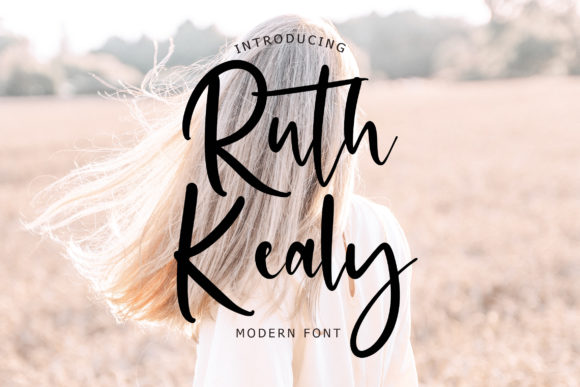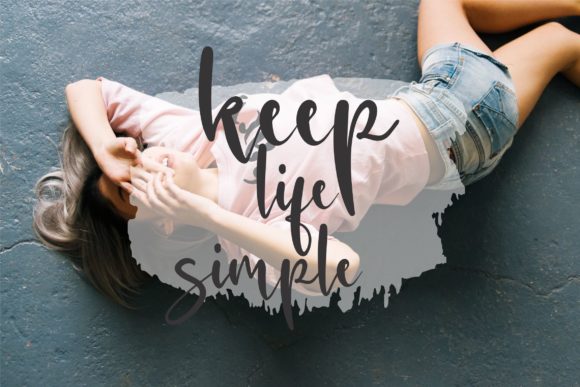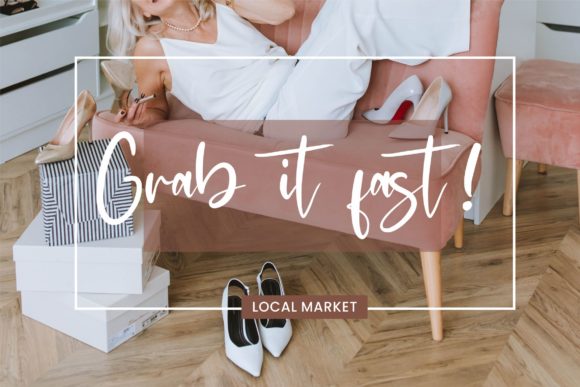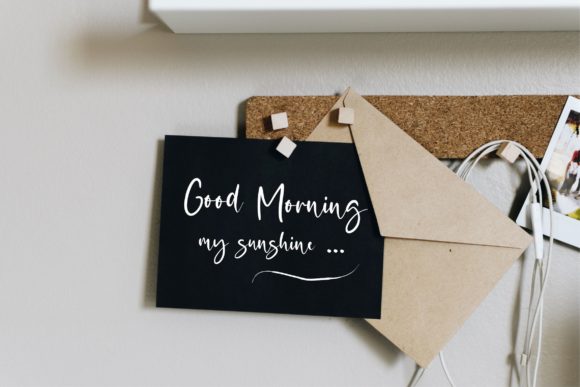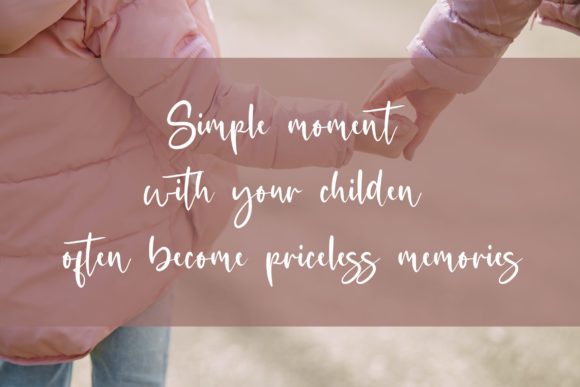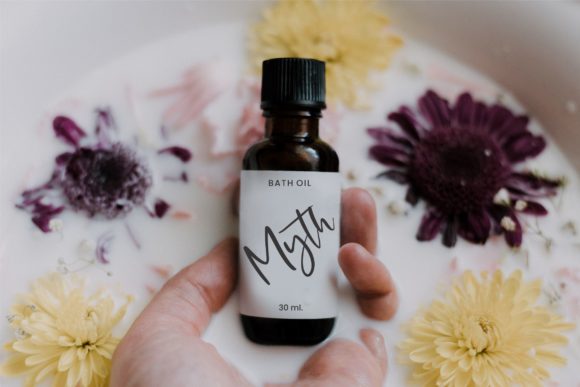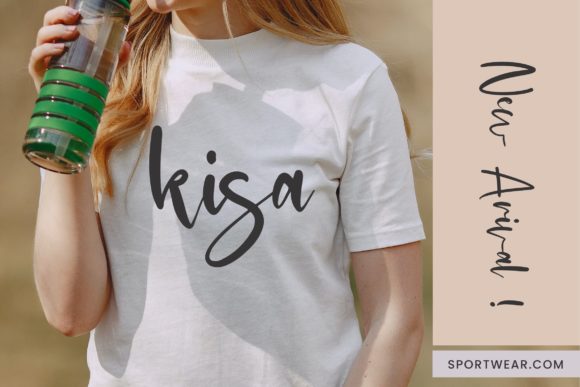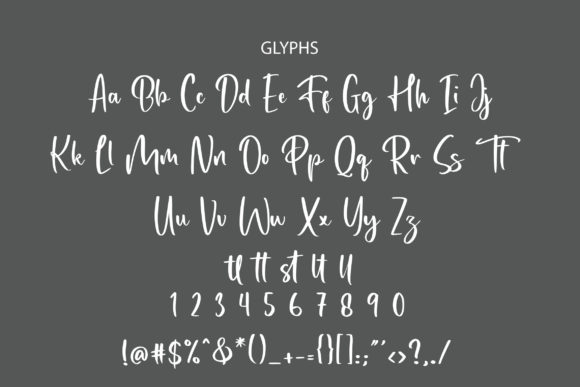
Ruth Kealy Font
About Ruth Kealy Font
Ruth Kealy is a trendy and elegant handwritten font that adds a touch of luxury and modernity to your text. Its smooth and flowing strokes create a sophisticated appearance, making it a perfect choice for various design projects.
For branding projects, Ruth Kealy brings a sense of exclusivity and refinement, making your brand appear upscale and chic. Whether used for logos, packaging, or marketing materials, the font adds a touch of elegance that sets your brand apart from the competition.
In wedding designs, Ruth Kealy adds a romantic and stylish element, making it ideal for invitations, save-the-date cards, and other wedding-related stationery. The font’s trendy appearance complements the modern aesthetics of contemporary weddings.
For social media posts and advertisements, Ruth Kealy’s stylish look attracts attention and engages viewers. Whether used for promotional graphics or inspirational quotes, the font adds a touch of sophistication that appeals to a wide audience.
In product packaging and labels, Ruth Kealy’s luxurious appearance enhances the overall presentation of your products, making them more visually appealing and enticing to customers.
For t-shirt designs and product designs, Ruth Kealy’s trendy and elegant look elevates your merchandise, giving it a premium and fashionable feel.
In photography watermarks and invitations, Ruth Kealy’s unique and stylish touch adds a personalized and artistic flair.
For stationery and any other design projects, Ruth Kealy’s versatility makes it suitable for a wide range of applications, adding a touch of modernity and sophistication to your creations.
In summary, Ruth Kealy is a trendy and elegant handwritten font that adds a touch of luxury, modernity, and sophistication to your text. Its smooth and flowing strokes make it perfect for branding projects, wedding designs, social media posts, product packaging, t-shirt designs, invitations, and much more. With Ruth Kealy, your designs will appear elegant and captivating, leaving a lasting impression on your audience.